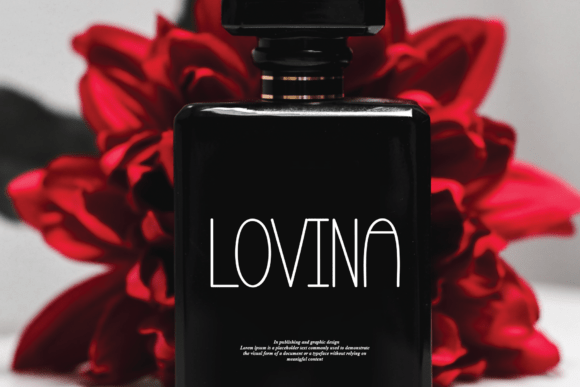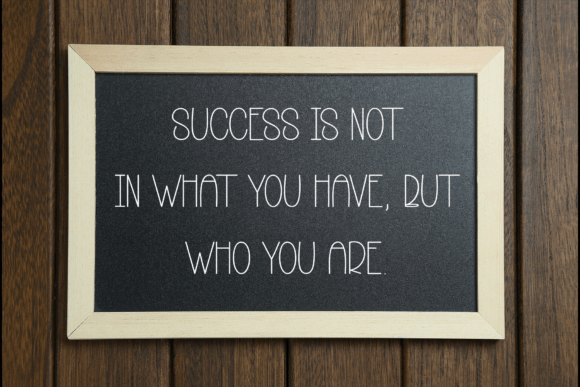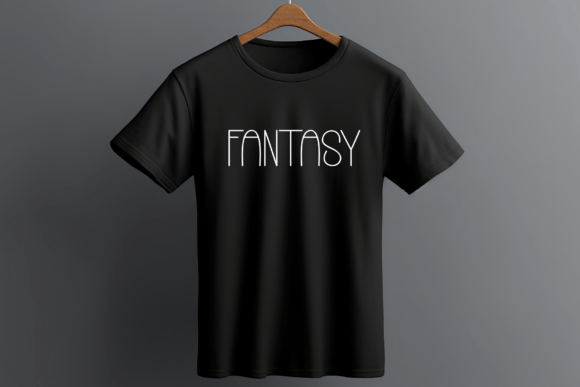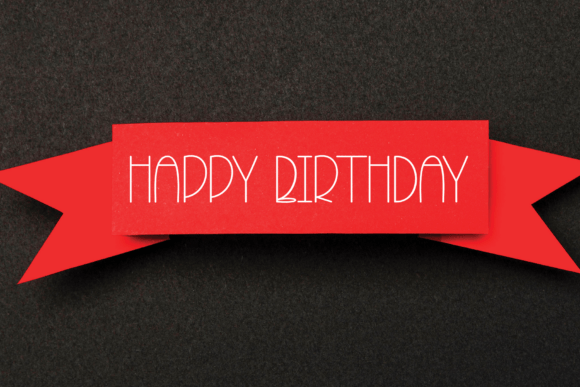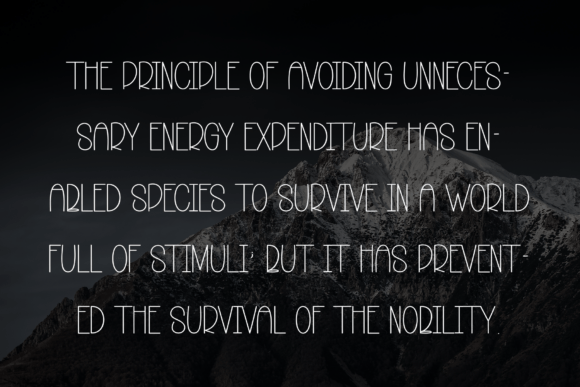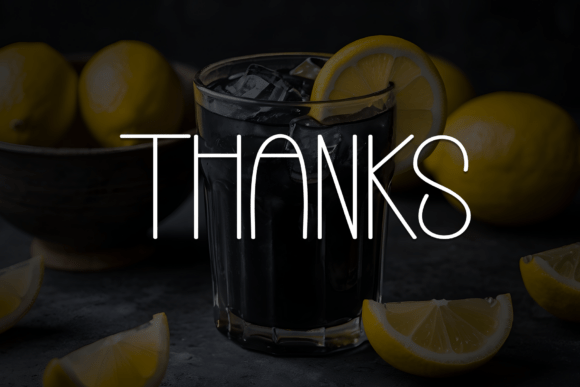
Introducing Black Lemonade Font: Elevate Your Designs with a Timeless Handwritten Style
Are you on the hunt for a font that can add a touch of elegance and sophistication to your designs? Look no further than Black Lemonade, a lovely and timeless handwritten font that’s perfect for creating eye-catching logos, branding, and quotes. With its unique and beautiful touch, this font is sure to make your design come alive!
The Charm of Black Lemonade Font
Black Lemonade Font is a stunning example of a handwritten font that exudes warmth and personality. Its timeless design makes it an excellent choice for designers and crafters who want to add a touch of classic charm to their work. Whether you’re creating a logo, branding materials, or inspirational quotes, this font is sure to impress.
What Makes Black Lemonade Font Special?
So, what sets Black Lemonade Font apart from other fonts? Here are a few features that make it a standout:
- Unique and Beautiful Touch: Every letter in the Black Lemonade Font has a unique and beautiful touch that adds a level of sophistication to your designs.
- Handwritten Style: The font’s handwritten style gives it a personal and approachable feel that’s perfect for creating a connection with your audience.
- Timeless Design: The font’s classic design ensures that it will remain relevant for years to come, making it a great investment for designers and crafters.
- Elegant and Sophisticated: Black Lemonade Font is the perfect choice for creating elegant and sophisticated designs that are sure to impress.
Black Lemonade Font is an excellent choice for designers and crafters who want to add a touch of elegance and sophistication to their work. Here are a few ways you can use this font:
- Logo Design: Use Black Lemonade Font to create eye-catching logos that are sure to make your brand stand out.
- Branding Materials: The font is perfect for creating branding materials such as business cards, brochures, and letterheads.
- Quotes and Inspirational Content: Black Lemonade Font is a great choice for creating inspirational quotes and content that will resonate with your audience.
- Digital and Print Materials: The font is versatile and can be used for both digital and print materials, making it a great addition to your design toolkit.
Tips for Using Black Lemonade Font
Here are a few tips for getting the most out of Black Lemonade Font:
- Pair it with Other Fonts: Experiment with pairing Black Lemonade Font with other fonts to create a unique and visually appealing design.
- Use it for Headlines and Titles: The font is perfect for headlines and titles, so use it to add a touch of elegance and sophistication to your designs.
- Experiment with Colors: Black Lemonade Font looks great in a variety of colors, so don’t be afraid to experiment and find the perfect color scheme for your design.
Black Lemonade Font is a timeless handwritten font that’s perfect for designers and crafters who want to add a touch of elegance and sophistication to their work. With its unique and beautiful touch, this font is sure to make your design come alive! Whether you’re creating logos, branding materials, or inspirational quotes, Black Lemonade Font is an excellent choice.